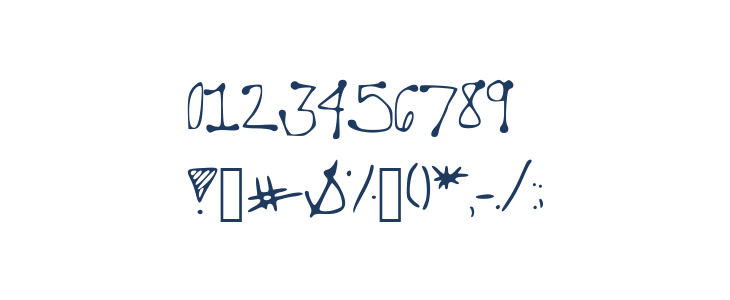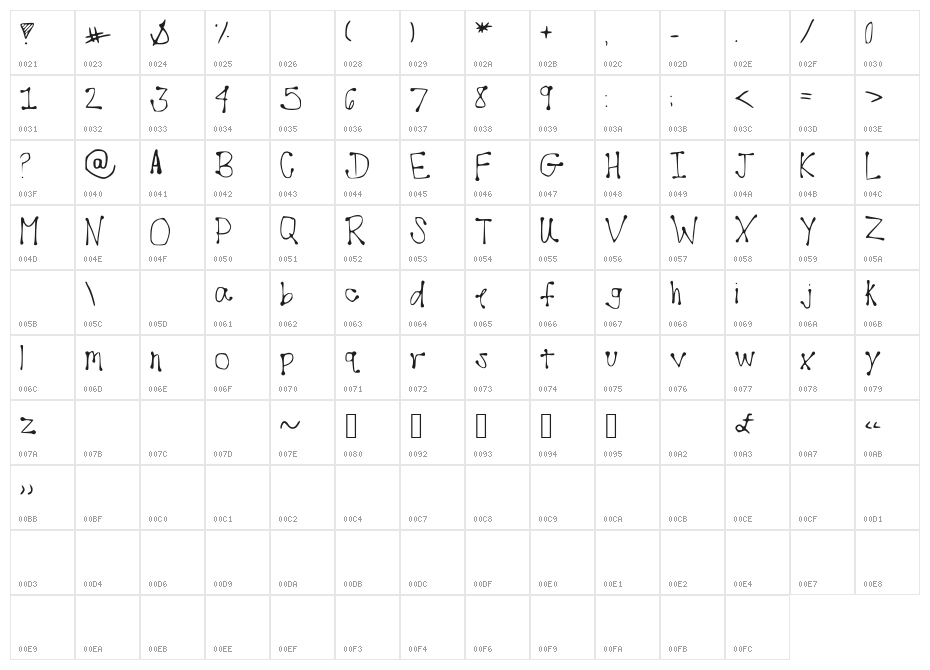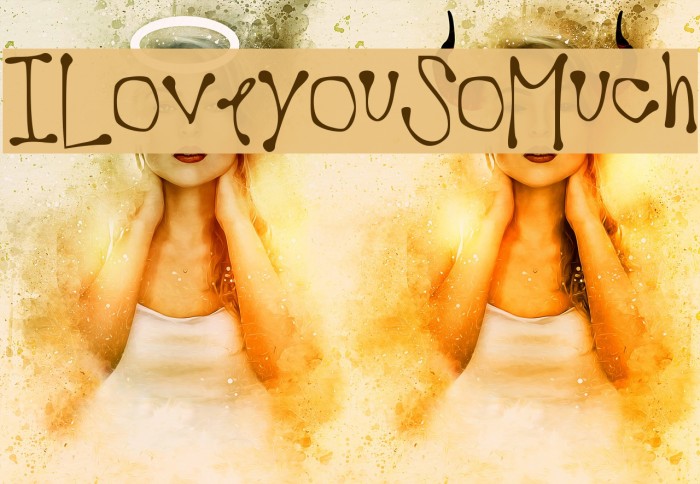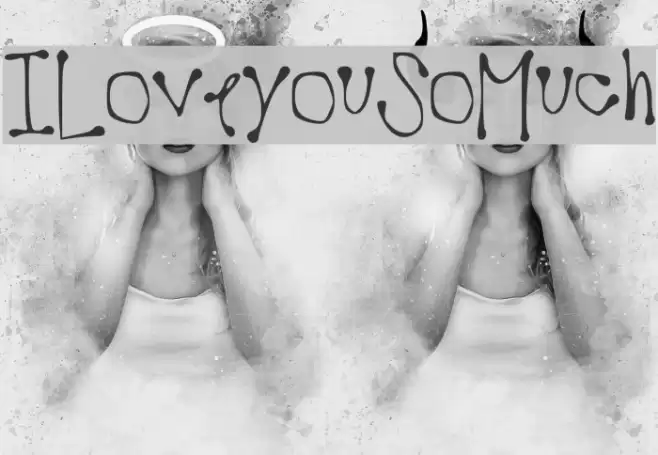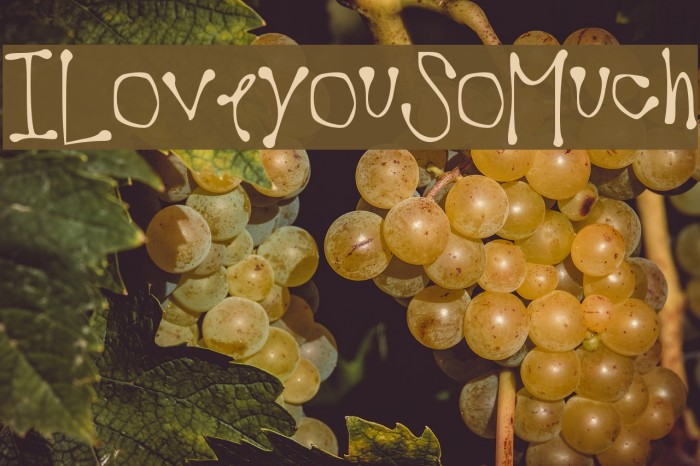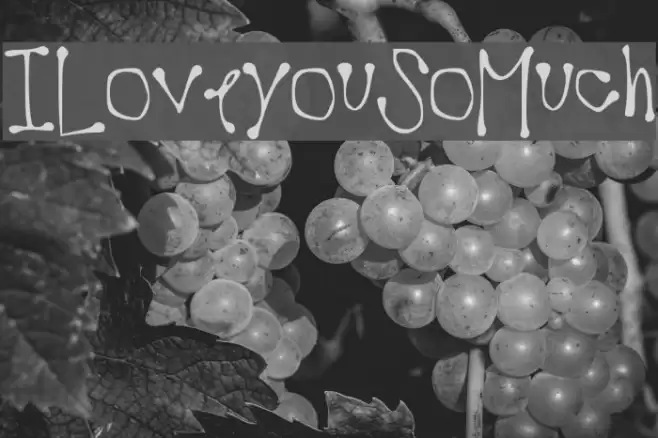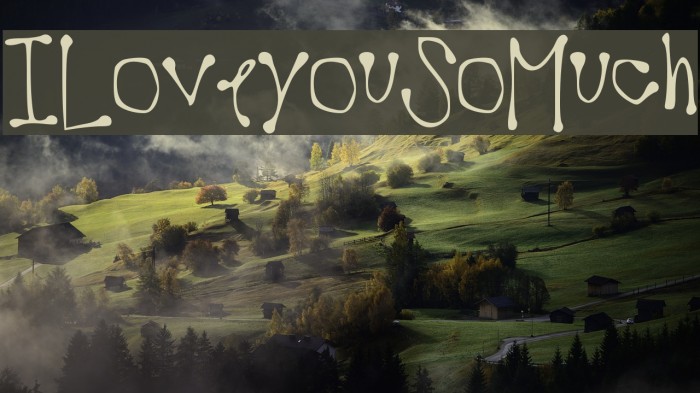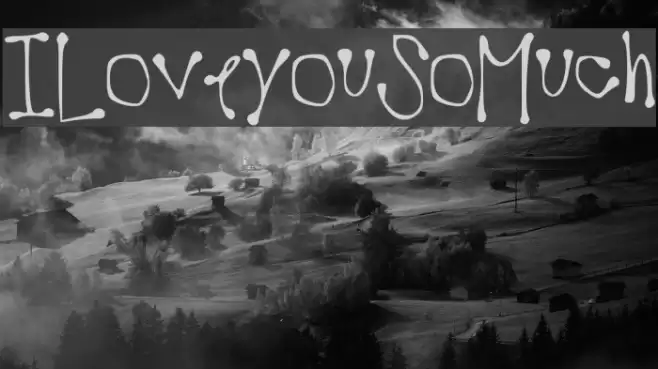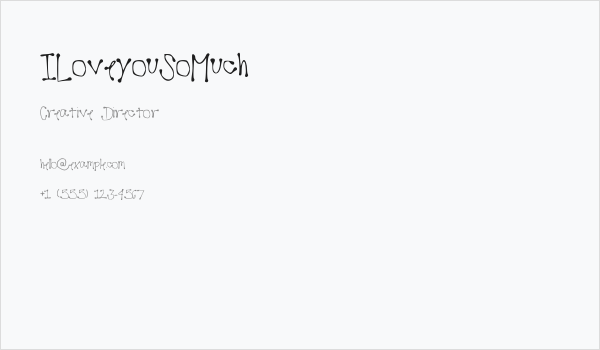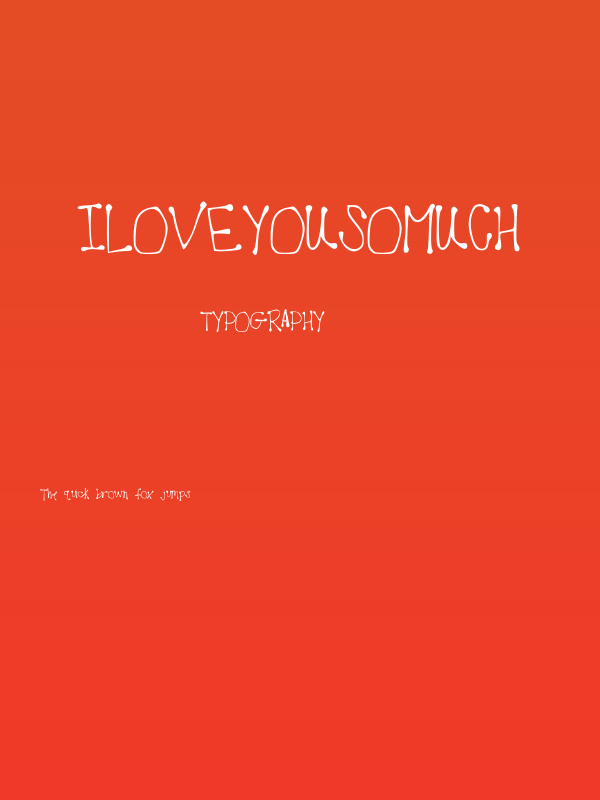
ILoveyouSoMuch Font
ILoveyouSoMuch Description
This playful and whimsical font features irregular, hand-drawn characters that exude a sense of fun and creativity. The letters have a unique, uneven stroke with varying thickness, giving them a lively and dynamic appearance. The uppercase and lowercase letters maintain a consistent style, with quirky curves and loops that add to the font's charm. Numbers and special characters are equally distinctive, with a playful twist that complements the overall design. This font is perfect for projects that require a touch of personality and flair.
| Proposed Projects | Ideal for children's books, creative posters, greeting cards, and playful branding materials. |